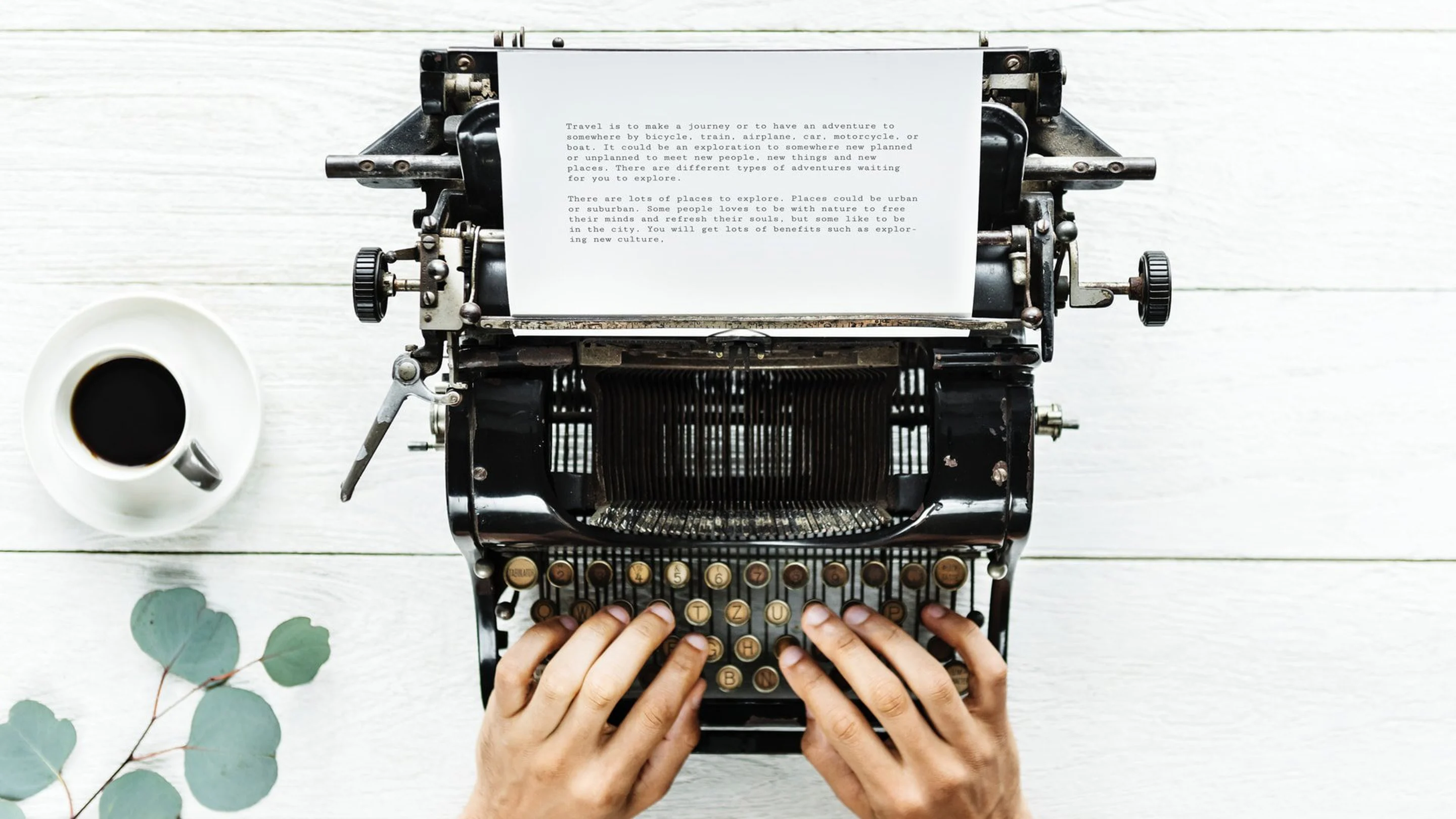
There’s something incredibly charming about typewriters. When you see something that’s been written using a typewriter, you immediately conjure up images of classic writers typing their masterpieces by candlelight, a lovesick poet furiously typing and pouring his heart out on the page, or an early 1990s-era teenager scrambling to type out a last-minute report that’s due in the morning. It’s all sorts of old-school, charming, and brings a strong sense of nostalgia.
Luckily, if you want to create that same kind of nostalgia in your designs, you don’t need to scour the nearest antiques store for an actual typewriter. You can create the same look and feel on your laptop with a typewriter font. And the best part? You can snag some of the best typewriter fonts available for free.
Here are 30 free typewriter fonts to help you create that old-fashioned, hand-typed look and feel in your designs: Free typewriter fonts to use in your next design
1942 Report(opens in a new tab or window) has the look and feel of a “Classified” document from...well, 1942. The inconsistencies with the shading makes it look as though some of the letters (like the capital “B”) have been typed over more than once. When combined with the dramatic ascenders and descenders on the font’s numerals, 1942 Report is a typewriter font that stands out as unique and distinctive—making this a great fit for more creative or artistic design projects.
One of the classic characteristics of actual typewriter text is uneven lettering (typically as a result of incorrectly loaded paper). Kingsthings Trypewriter(opens in a new tab or window) recreates the uneven look of real typewriter text with an uneven baseline and slightly skewed letters. This font would be best suited for more creative designs; the uneven lettering is too casual for a more corporate design.
If you’re looking for a bold typewriter font, Radio Newsman(opens in a new tab or window) certainly fits the bill. This strong serif font features a large, bold letterform that conveys a feeling of strength and confidence—which would make it a great choice for more corporate brands that want to instill trust in their audience.
The different sizes and angles of each letter in Junko’s Typewriter Font(opens in a new tab or window) (paired with the random splotches that mimic ink stains on paper) make for a contemporary, whimsical font that is far from your run-of-the-mill typewriter text. While this font is too whimsical for more traditional designs, it would make a welcome addition for more funky, laid-back, or creative brands or design projects.
There’s something very traditional about typewriter fonts (they predate computers, after all!). And if you want to stick to a traditional look and feel with your designs, Erika Ormig(opens in a new tab or window), with its traditional serif and slightly bold appearance, is a safe choice.
At first glance, Compagnon Roman(opens in a new tab or window) may look like your typical typewriter font—but this unique font is anything but. Front the mix of rounded spurs and traditional serifs to the flattened loop on the lowercase “g,” this font has enough unexpected features to lend a distinctive feel to designs. Compagnon Roman is a great bridge between more traditional and more artistic fonts—making this a font choice that would work equally well for both corporate and creative designs.
Conspiracy(opens in a new tab or window) is another font that recreates the look and feel of real typewriter text with an uneven baseline and irregular shading (which mimics the look of a typewriter that’s lightly stamped the page). This font has a funky, casual feel—so if funky and casual is what you’re going for, this font would be a great choice for your designs.
Thanks to its irregular shading, Harting Plain(opens in a new tab or window) has the look and feel of a typewriter that’s running out of ink. While this font won’t be the best choice if you need your text to stand out or jump off the page, it’s a great choice if you want to take a more subtle approach.
Nimbus Mono(opens in a new tab or window) is simple, straightforward, and traditional—basically exactly what you’d expect if you sat down at an old-school typewriter to hammer out text. This font would be an ideal choice for brands or designs that need a more traditional look and feel.
For the most part, Secret Typewriter(opens in a new tab or window) is a standard typewriter font. What makes it stand out? It’s narrow spacing, which makes for a less formal feel that would work well for more laid back brands or designs.
Like the look of Secret Typewriter but want a little bit of a bolder, bigger feel? Tru Veteran Typewriter(opens in a new tab or window), which has the same look as Secret Typewriter—just with a bit more spacing between each letter.
Typewriters have a certain charm to them. And with these free typewriter fonts, you can create the same kind of charm in your designs. So what are you waiting for? Get out there and type your way to charming and unique designs—and do it for free!